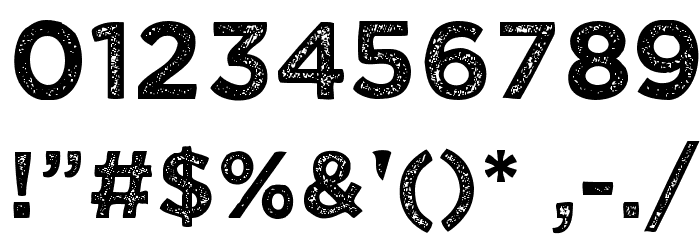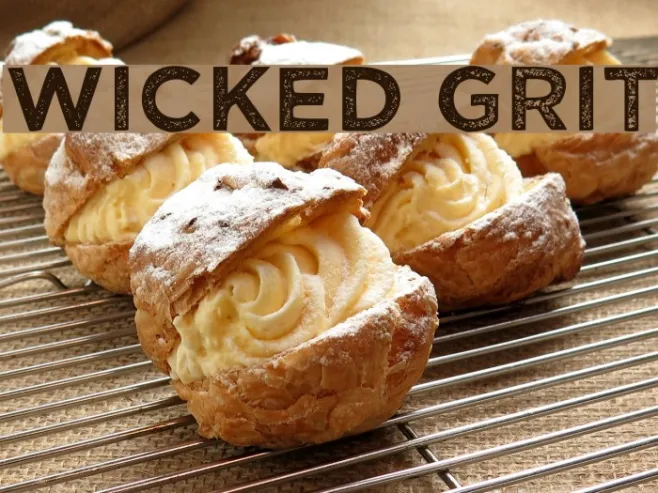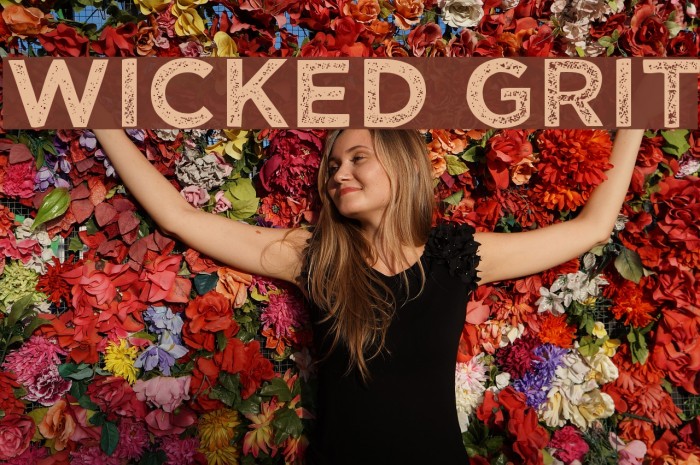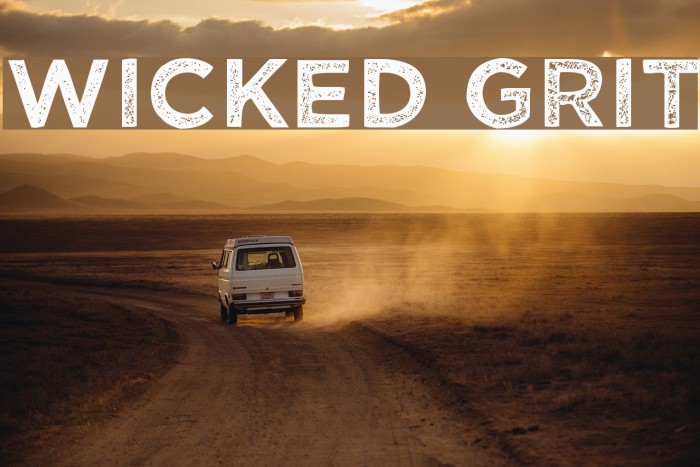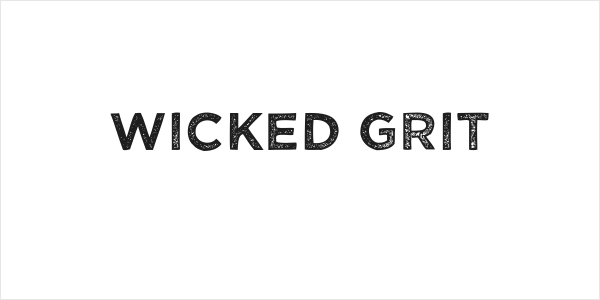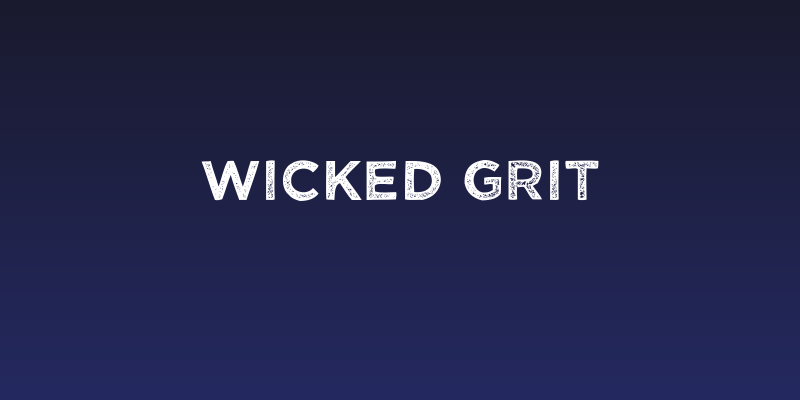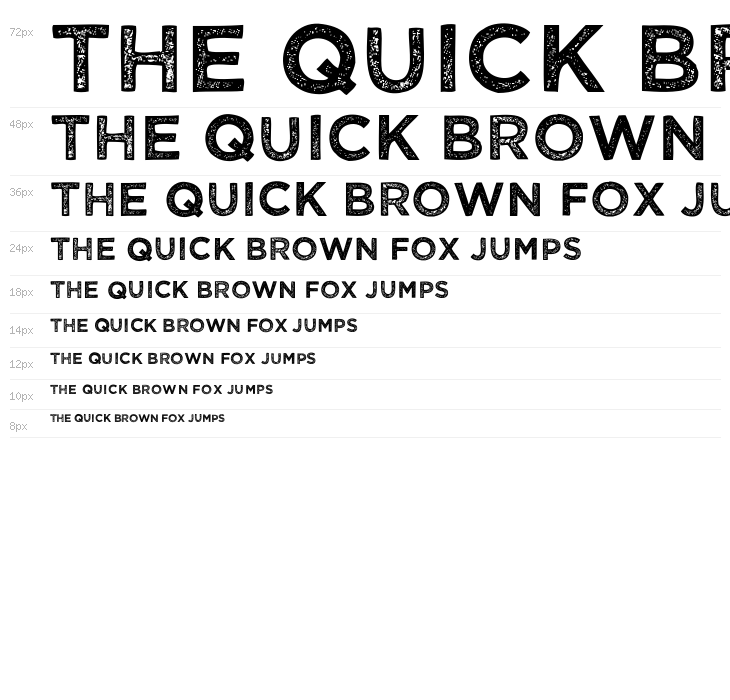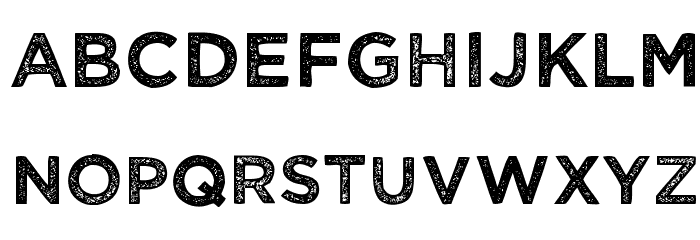
Wicked Grit Font
Wicked Grit Description
This font features a bold, distressed style with a gritty texture that gives it a rugged and vintage appearance. The uppercase letters are strong and impactful, making them ideal for attention-grabbing headlines. The numbers and special characters maintain the same distressed look, ensuring consistency across all elements. The texture adds a unique character, making it suitable for projects that require a touch of edginess or a retro feel. The overall design is balanced, with each letter maintaining a uniform width and height, contributing to its readability despite the textured effect.
| Proposed Projects | Ideal for posters, album covers, branding for edgy products, or any design needing a vintage or rugged touch. |